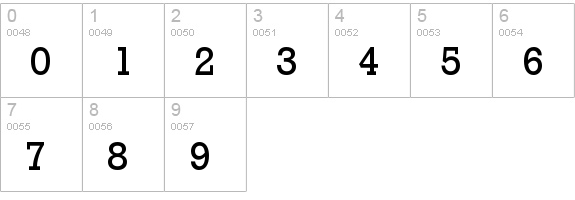
Astute SSi is a modern and stylish font that exudes sophistication and elegance. Its clean lines and sharp edges make it perfect for a wide range of design projects, from branding to editorial design. The versatility of Astute SSi allows it to be used in both digital and print formats, making it a go-to choice for designers looking for a sleek and professional typeface. What sets Astute SSi apart is not only its aesthetic appeal but also its accessibility. This premium font is available for free download on FontsMarket.com, allowing designers of all levels to access and utilize its sleek design elements without any cost associated. With its bold presence and contemporary flair, Astute SSi is sure to elevate any design project it is incorporated into. Download Astute SSi today and add a touch of sophistication to your next creative endeavor.